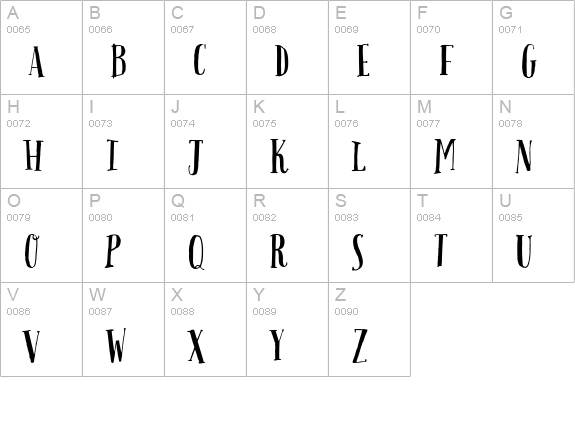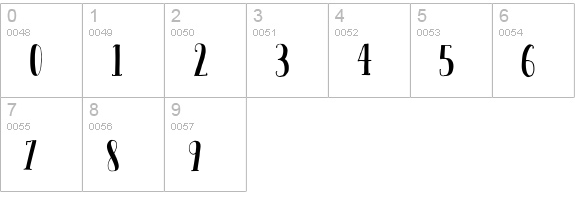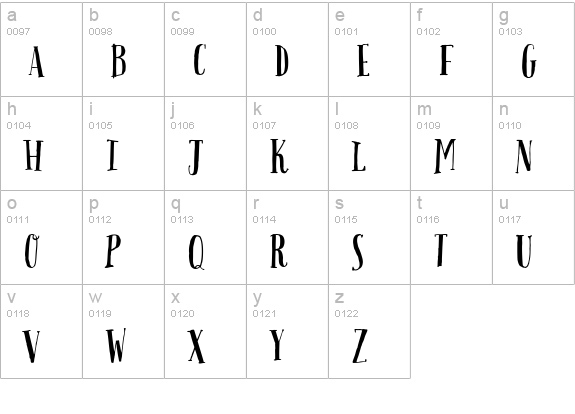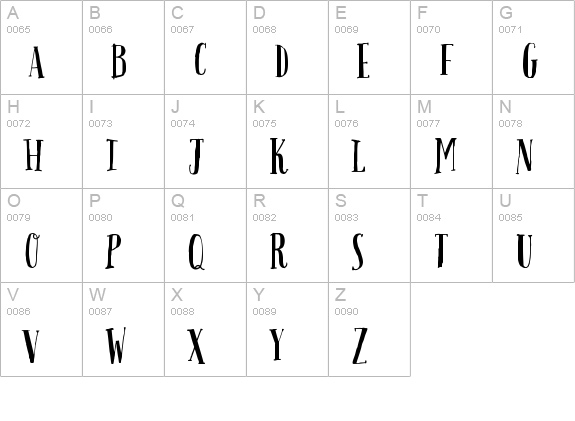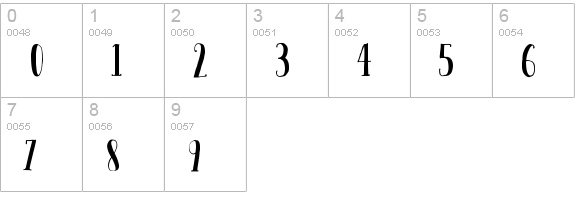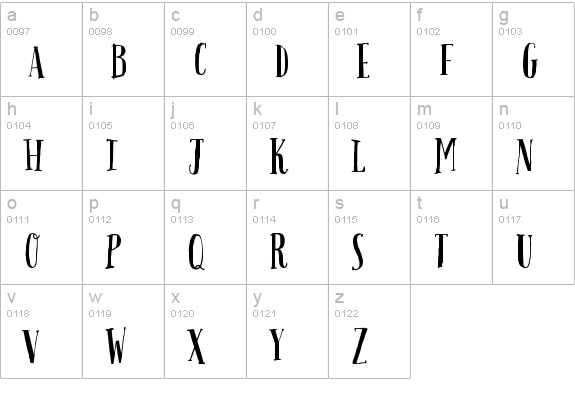
Pacific Northwest Regular is the standard, neutral variant in the Pacific typeface family \xE2\x80\x94 well suited to general body text, paragraphs, and standard typographic work.
Pacific Northwest Regular font is a versatile and modern typeface inspired by the natural beauty of the Pacific Northwest region. With its clean lines and classic design, this font is perfect for a wide range of design projects, from branding and advertising to social media graphics and website design. The Pacific Northwest Regular font exudes a sense of sophistication and elegance, making it a popular choice among designers and creatives. Best of all, this font is available for free download at FontsMarket.com. Whether you're a seasoned designer looking to enhance your portfolio or a hobbyist exploring new creative avenues, the Pacific Northwest Regular font is a valuable addition to your font library. Download it today and unleash your creativity with this stunning typeface.